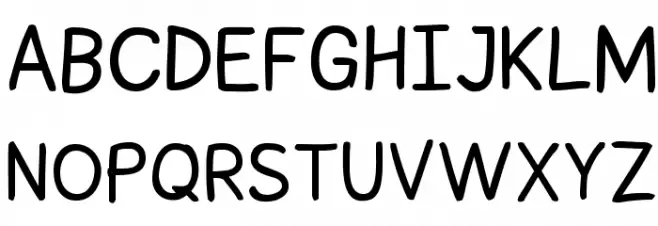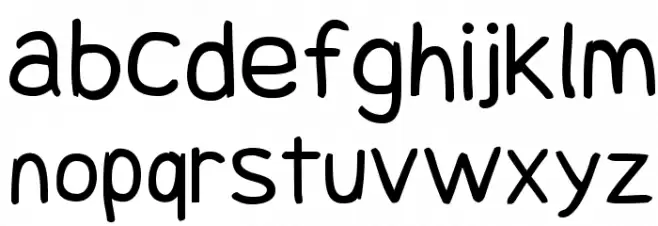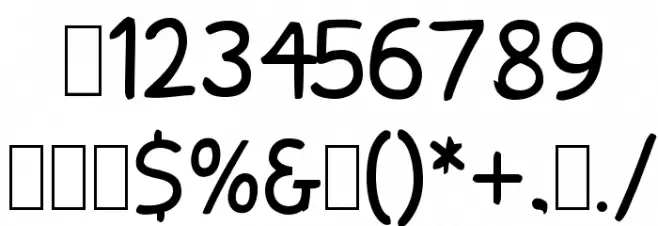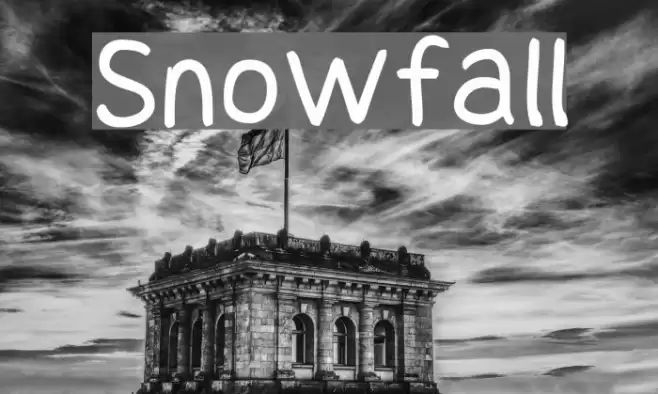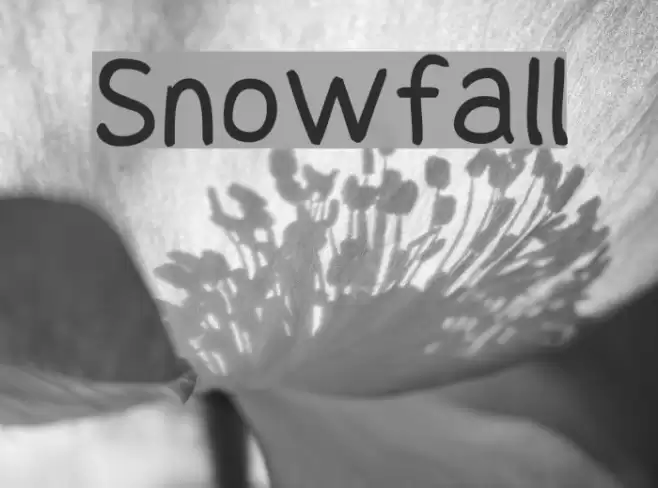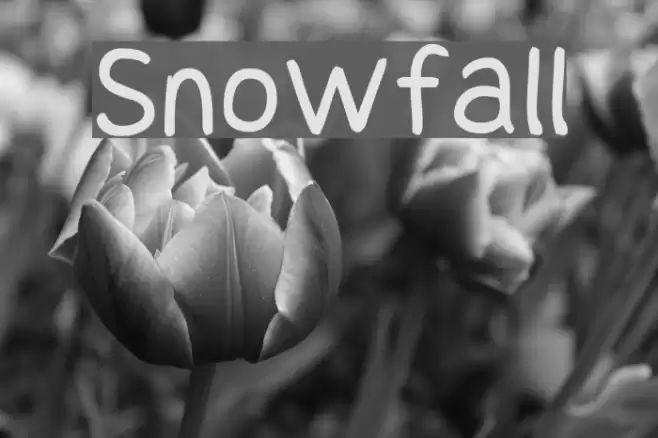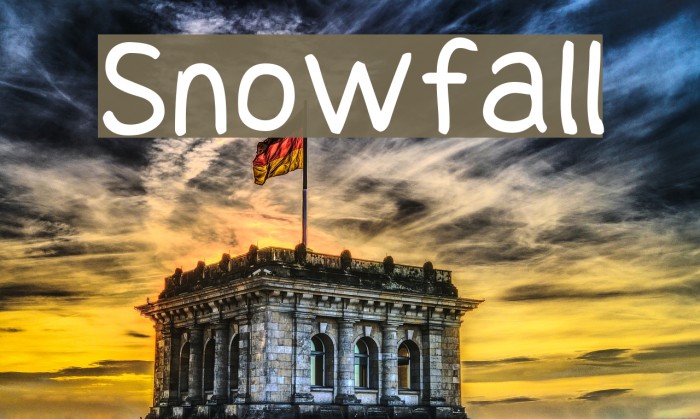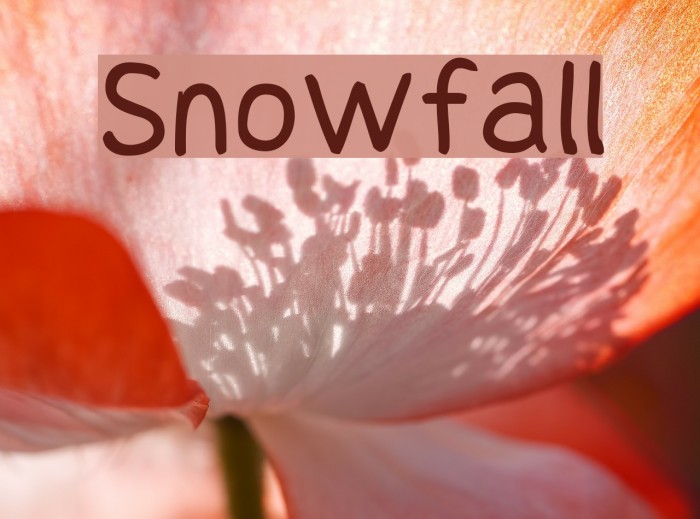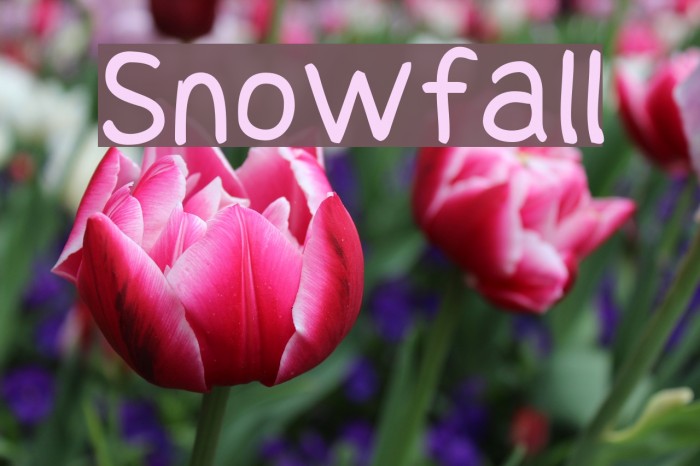
Snowfall
This playful and rounded font features a casual, handwritten style that exudes warmth and approachability. The characters are slightly irregular, giving them a friendly and informal appearance. The uppercase and lowercase letters maintain a consistent flow, while the numerals and special characters complement the overall style. The font's smooth curves and rounded edges make it ideal for projects that require a personal touch. Its simplicity and clarity ensure readability, making it suitable for various applications.
A playful, rounded handwritten font with a casual and friendly style.
- Proposed Projects: Ideal for children's books, greeting cards, casual branding, and playful posters.
- Overall Style: Casual
- Use Case: Headlines, Informal text, Branding